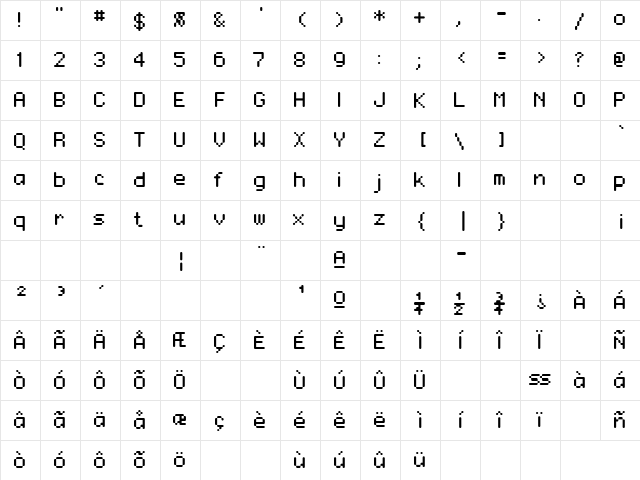
ScreamHot Regular
Design Context for ScreamHot Typeface
ScreamHot offers clean, dependable letterforms without strong stylistic allegiance, making it a practical choice for designers who need flexibility.
Pro Tip: Use ScreamHot in both headline and body roles to test its range before committing to a single application.